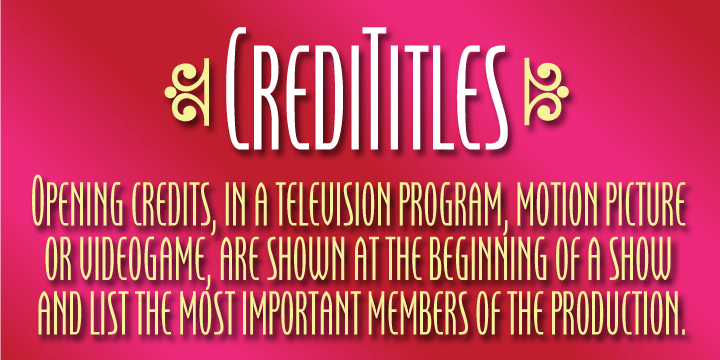
A condensed tall upright font with lowercase small-caps. Basically designed for movie posters.
May also be used for a variety of tight-fitting type designs, from packaging to captions.